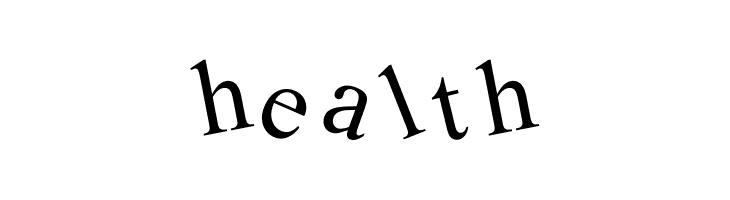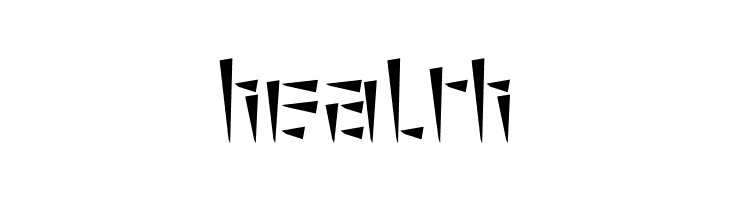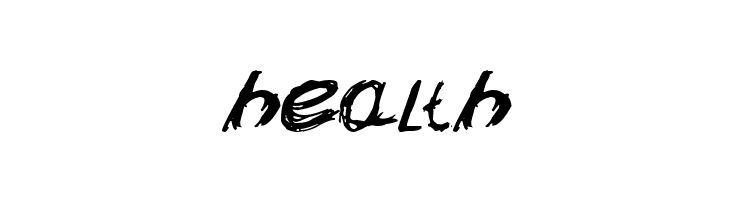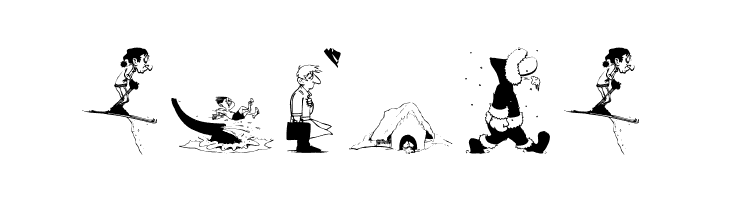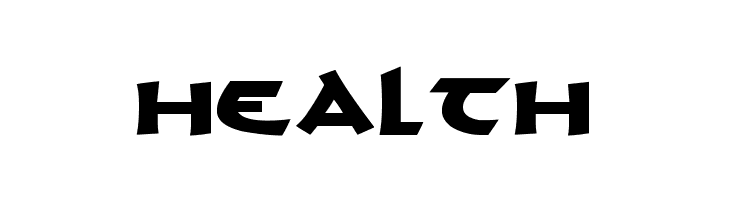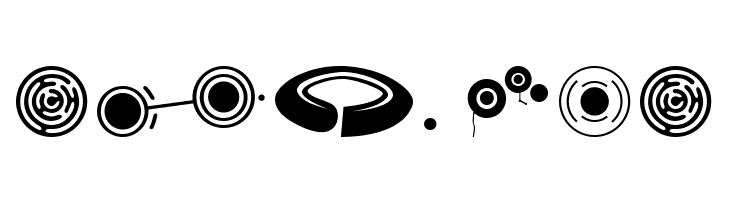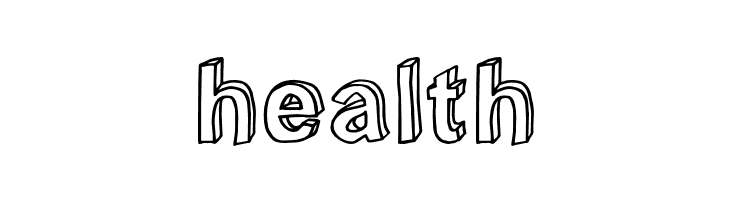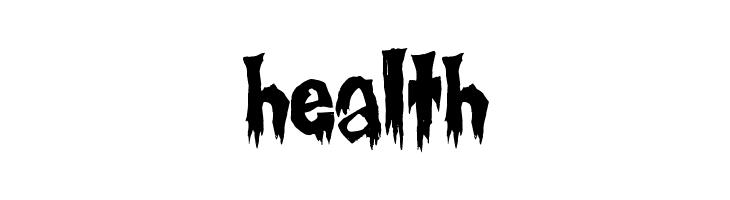
A bold, playful font with a three-dimensional, shadowed style.
A bold, playful font with a 3D graffiti-like style.
An elegant script font with intricate swirls and high contrast strokes.
A playful, casual handwritten font with smooth, flowing lines.
A playful handwritten font with tall, narrow letterforms and a casual style.
A playful and casual handwritten font with fluid, connected strokes.
A playful, ghost-themed decorative font perfect for Halloween projects.
A modern sans-serif font with clean lines and geometric shapes.
A bold, modern sans-serif font with excellent legibility and balanced character spacing.
A modern sans-serif font with clean lines and balanced proportions.
A bold, geometric font with a modern and impactful design.
A bold, serif font with strong strokes and classic elegance.
An elegant serif font with a classic italic style and smooth, flowing lines.
An elegant serif font with a classic italic style and high contrast.
An elegant serif font with italicized characters and medium contrast.
A classic serif typeface with an elegant italic slant and moderate contrast.
A bold, dramatic Blackletter-style font with intricate details and sharp, angular lines.
A playful, hand-drawn font with a whimsical and informal style.
A whimsical collection of festive decorative symbols and illustrations.
A chaotic, graffiti-inspired font with jagged, hand-drawn letters.
A bold, distressed gothic font with a grunge texture.
An elegant, flowing script font with graceful loops and cursive strokes.
An intricate, decorative font with mystical and fantasy-inspired symbols.
A lively and elegant script font with fluid, connected letterforms and a modern classic appeal.
A modern, geometric font with characters enclosed in bold frames, ideal for tech-themed designs.
A spooky, hand-drawn font with jagged edges, perfect for eerie themes.
A playful, rounded font with smooth curves and a friendly appearance.
A bold, playful font with thick outlines and a cartoonish style.
A playful, Halloween-themed font with hand-drawn, brush-like letters.
An elegant script font with flowing, cursive strokes and high contrast.
A playful, handwritten marker-style font with bold, rounded characters.
A decorative and abstract font with characters in circular shapes, featuring geometric patterns.
A decorative and abstract font with characters in circular shapes, featuring bold and artistic designs.